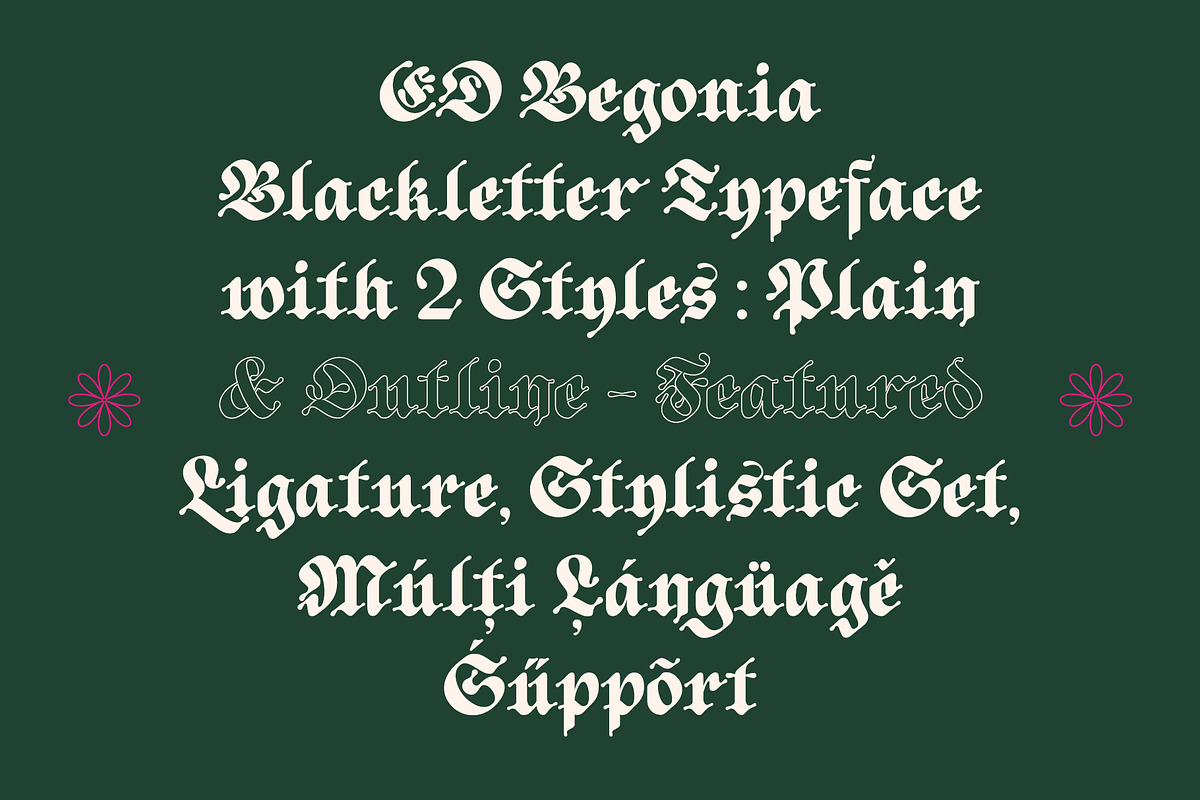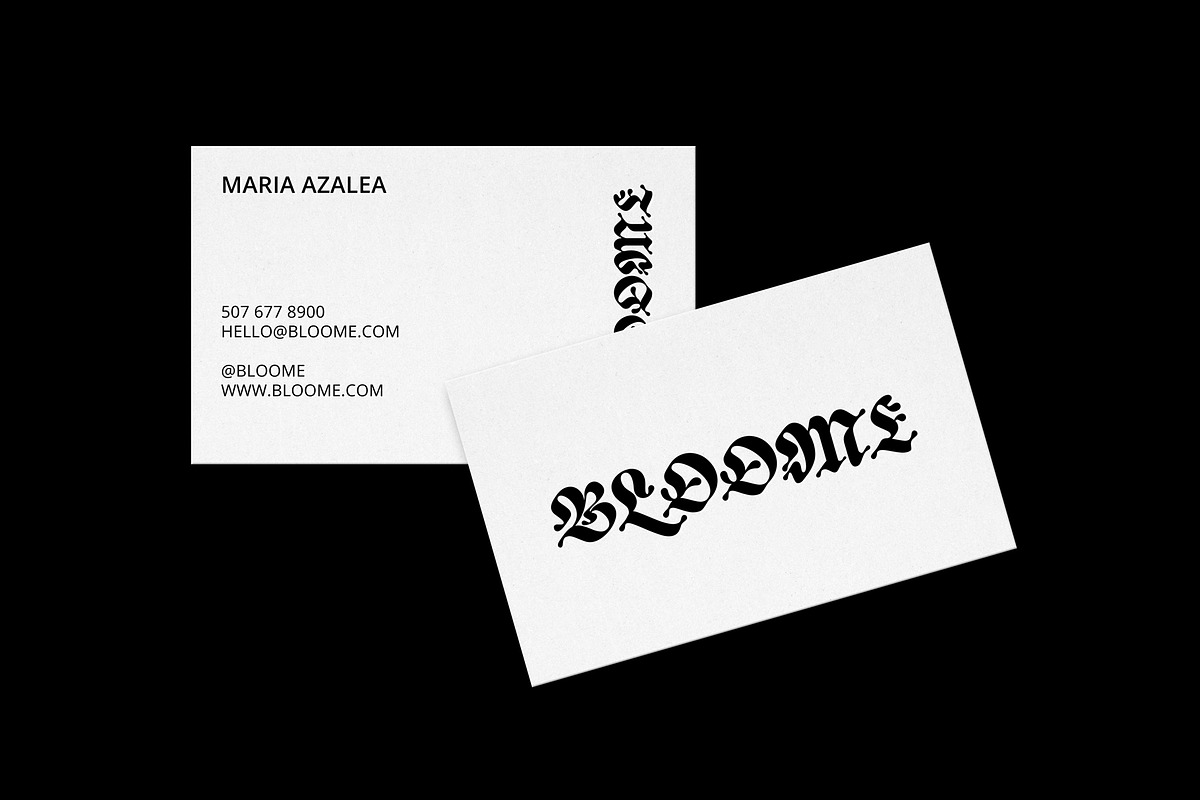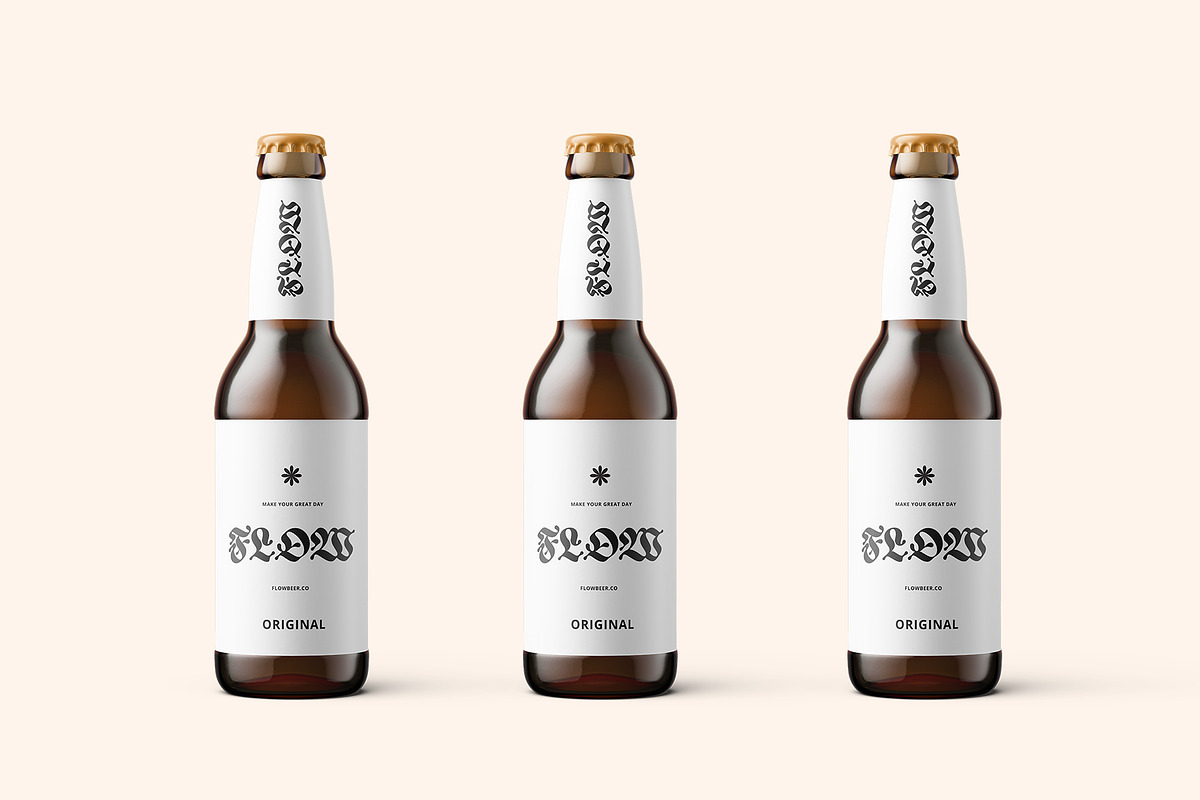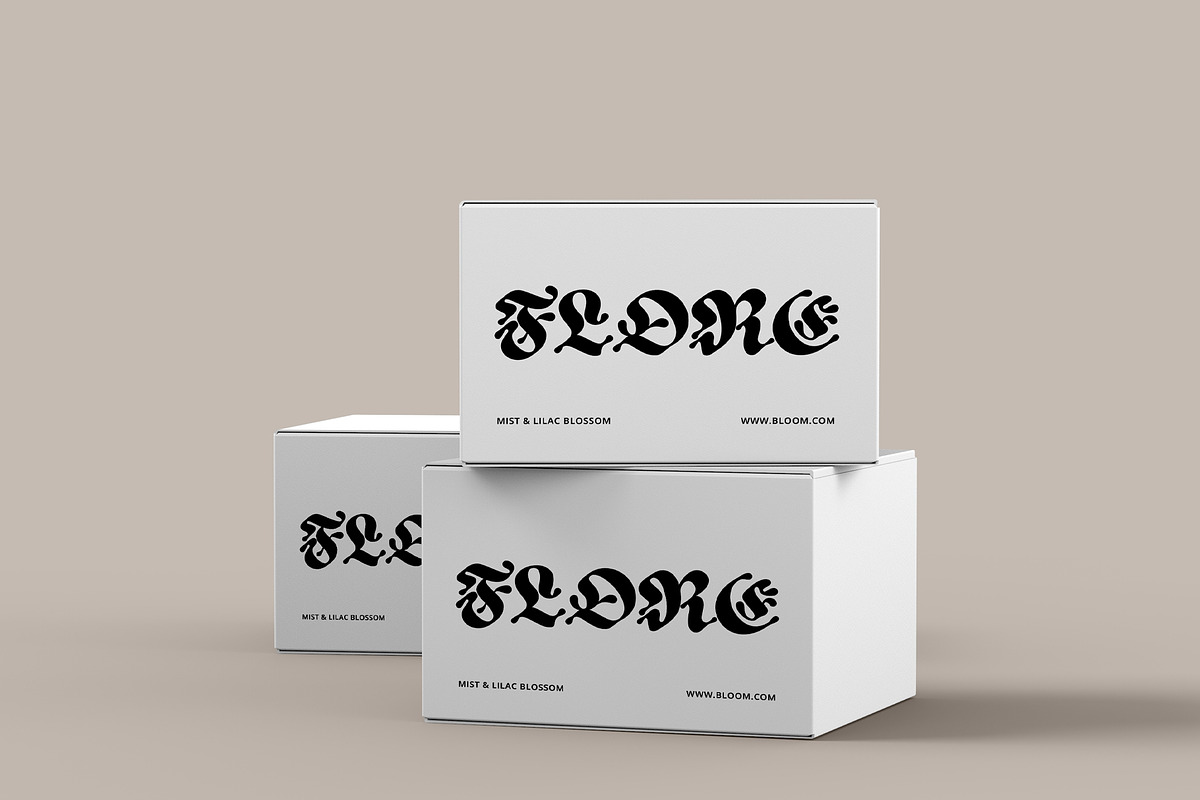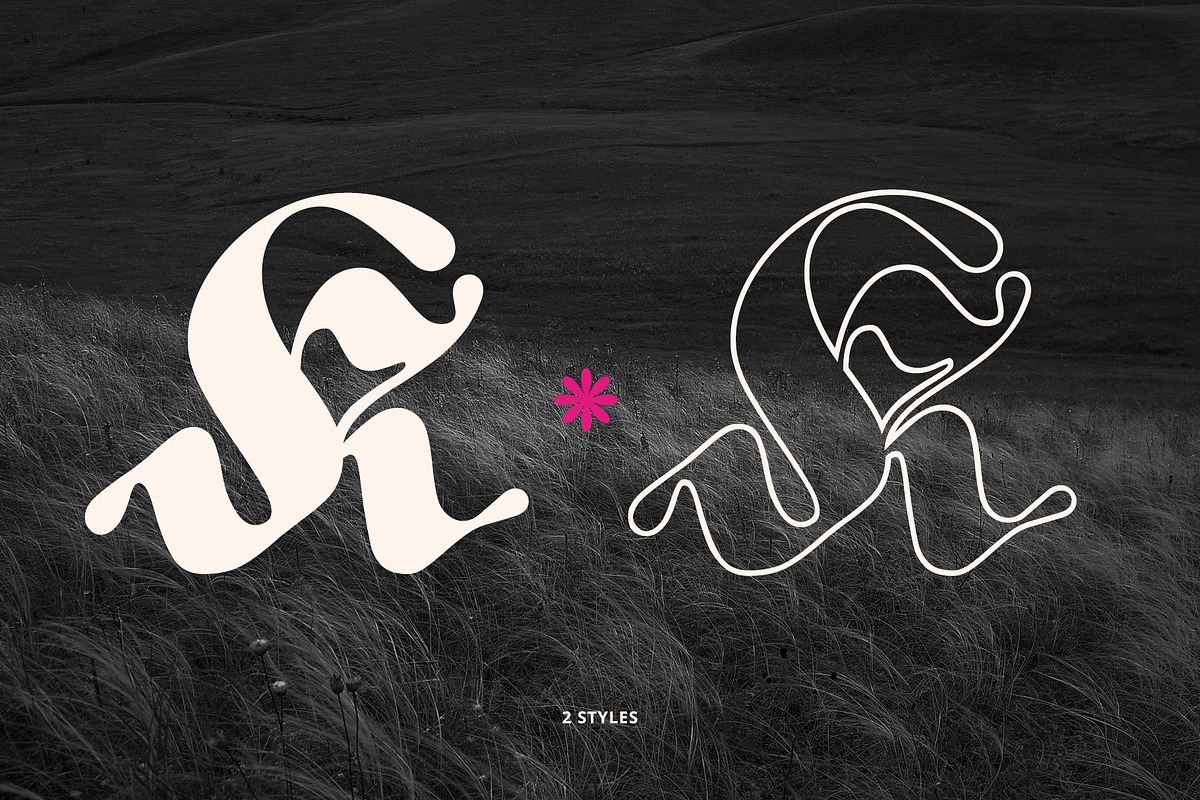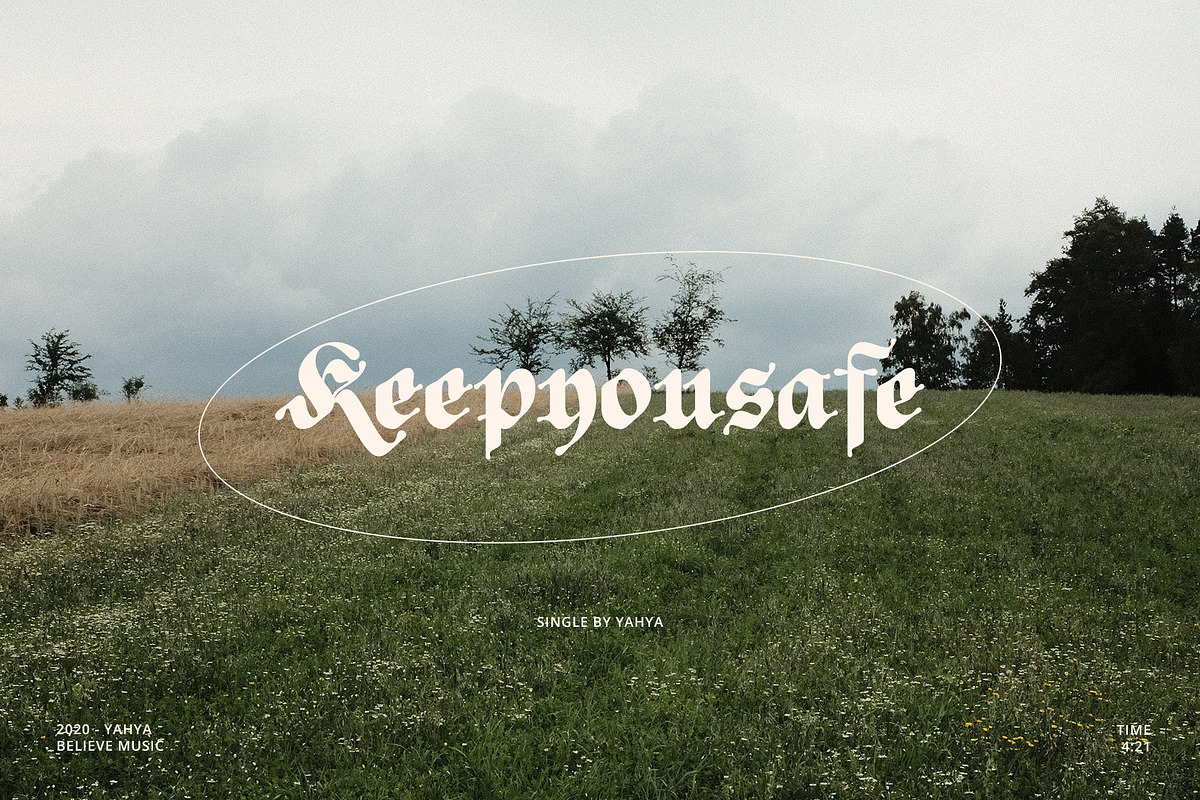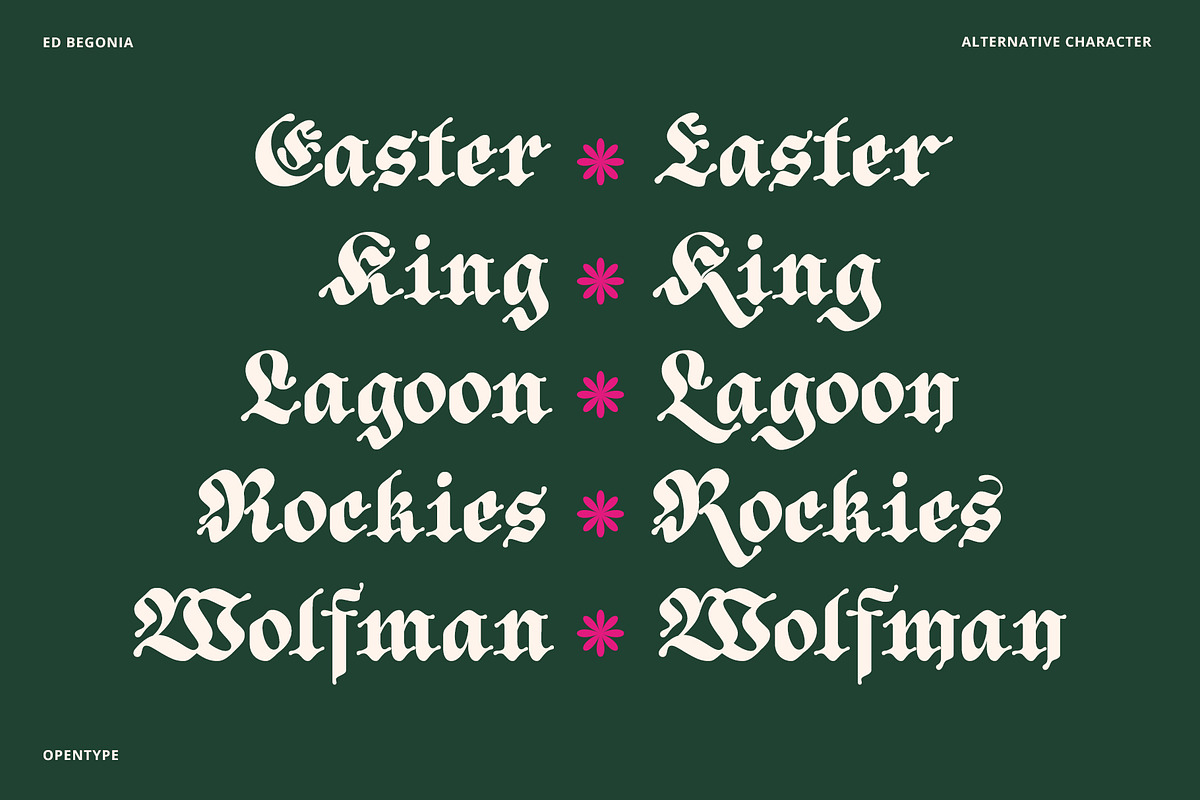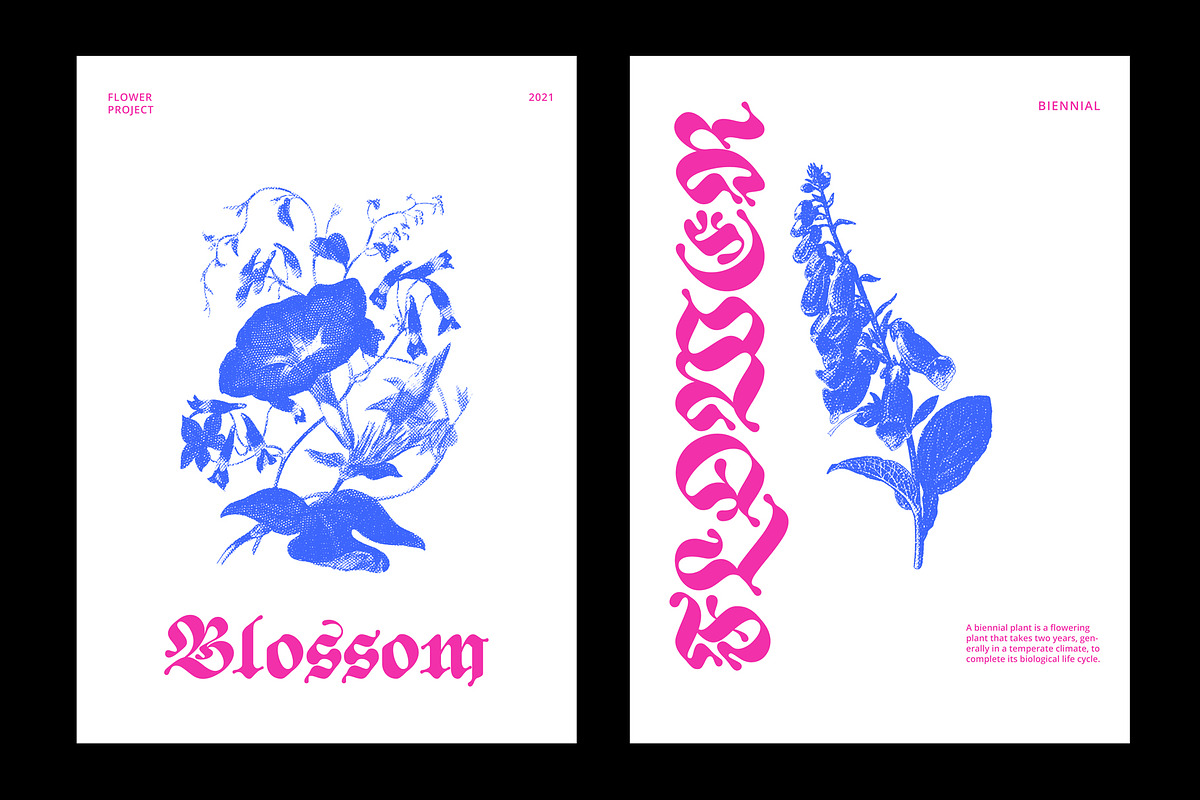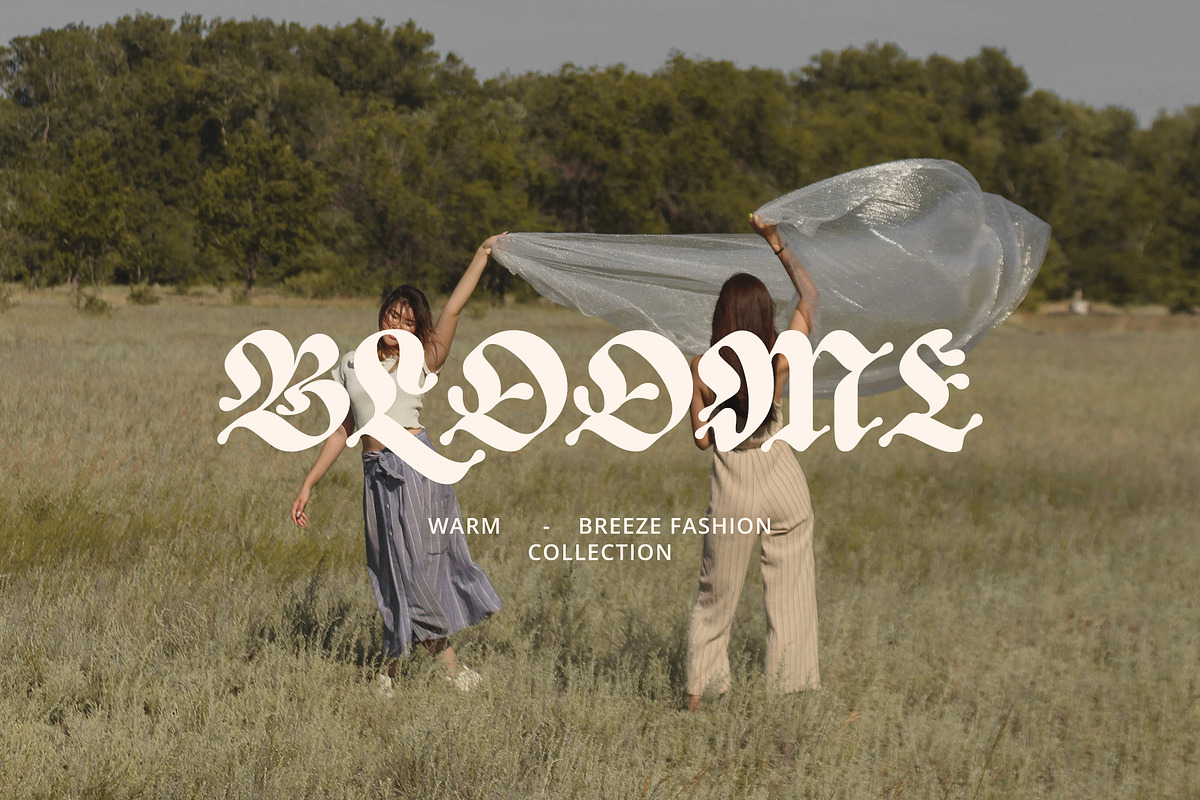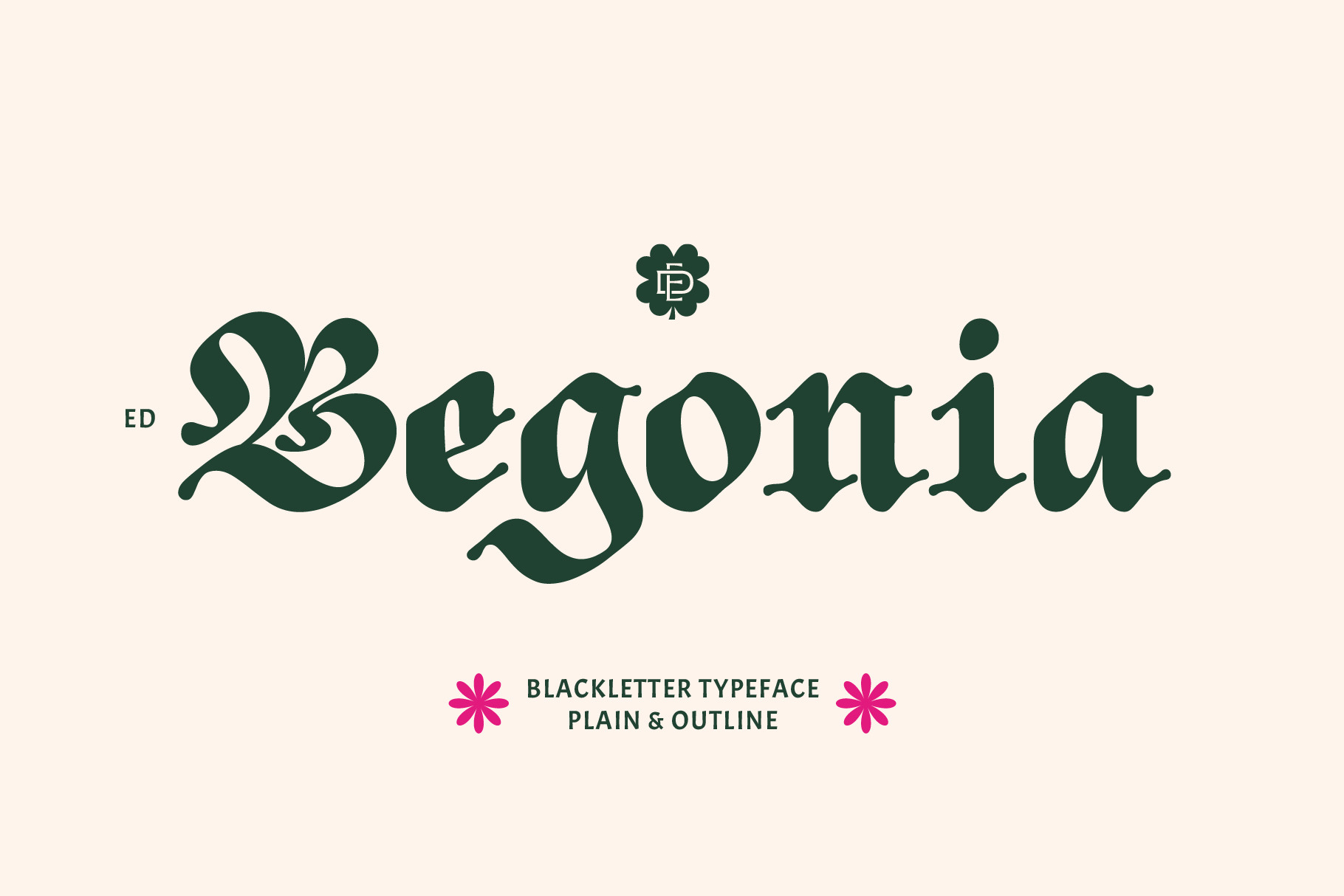
ED Begonia - Blackletter Typeface
ED Begonia is a blackletter font in a groovy modern style with flower petal-inspired curves and look fun. This font is equipped with several opentype features such as Ligatures, Alternative Character / Stylistic Set, and multi-language support.
This font has 2 plain and outline styles that complement your design needs, and this font is designed to be able to combine with other fonts. This font is perfect for branding, logo design, cover design, books, magazines, apparel designs, headlines, etc.
- Total Glyph : 375
- Punctuation and Marks
- Ligatures & Alternative Character